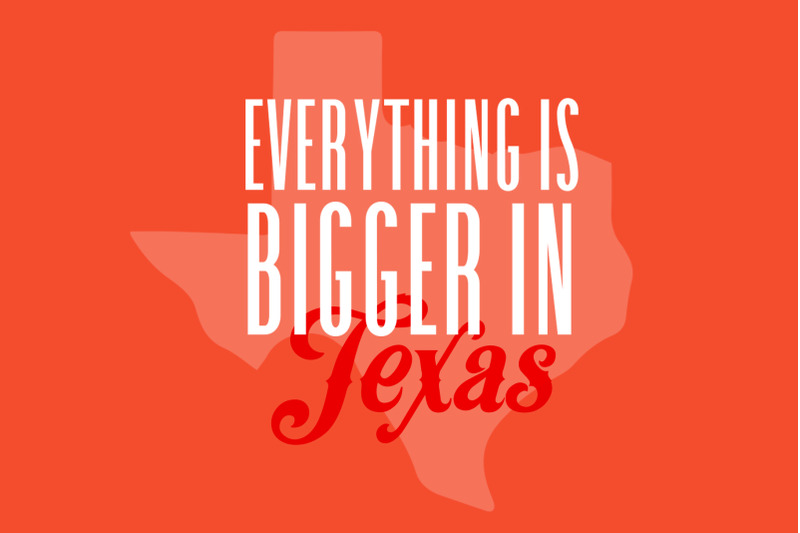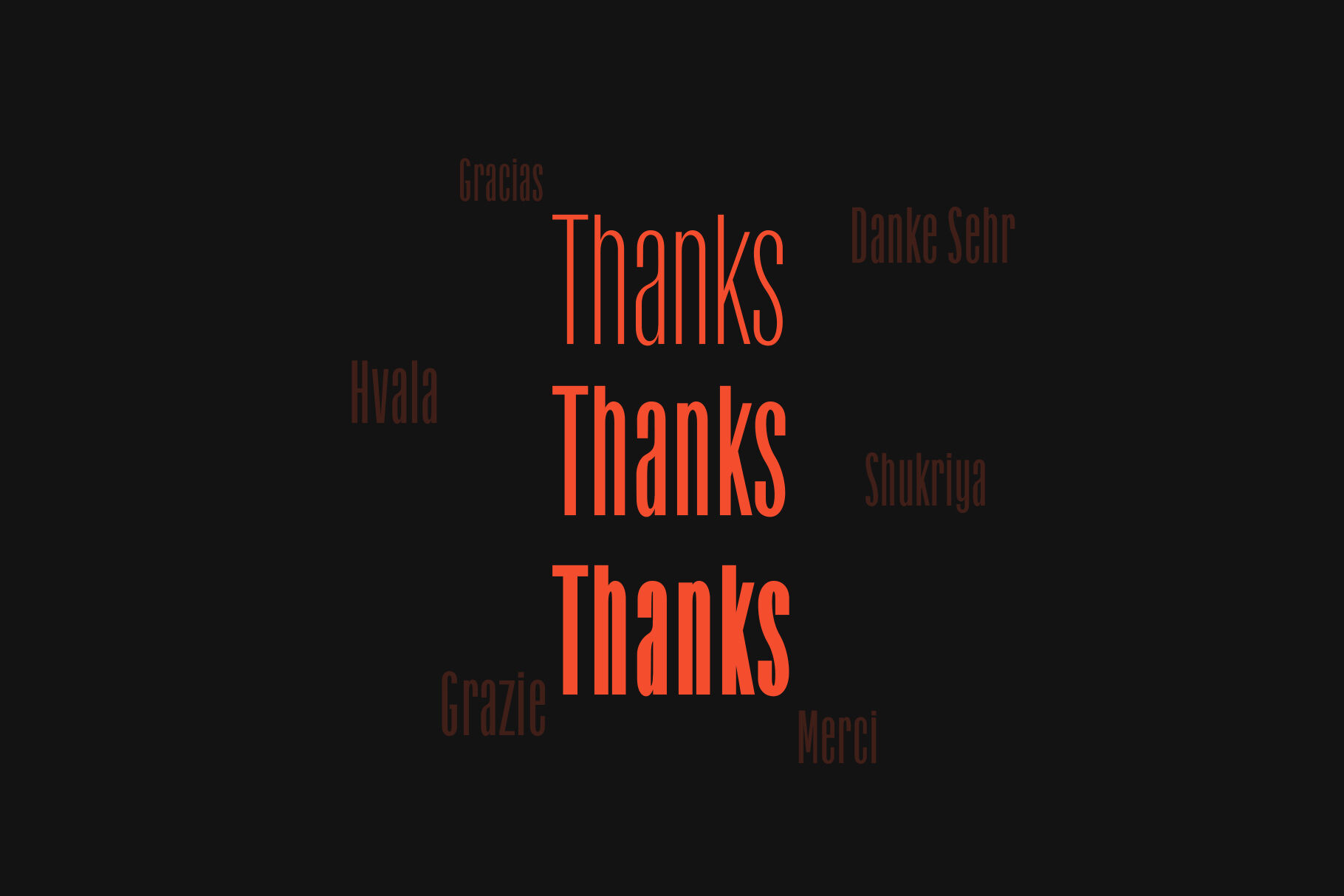
Havanna - Tall sans typeface with 3 weights
Havanna sans is an elegant, tall and unique font. Use it for headlines, paragraphs, cover photos, web design, you name it. It would elevate any kind of design. Havanna sans is a multilingual font supporting many different languages. Please test your language in the preview box below. You will get: OTF file. TTF file. Web font file. If you have any questions, please let me know in the comment section or DM or email me at  Thanks